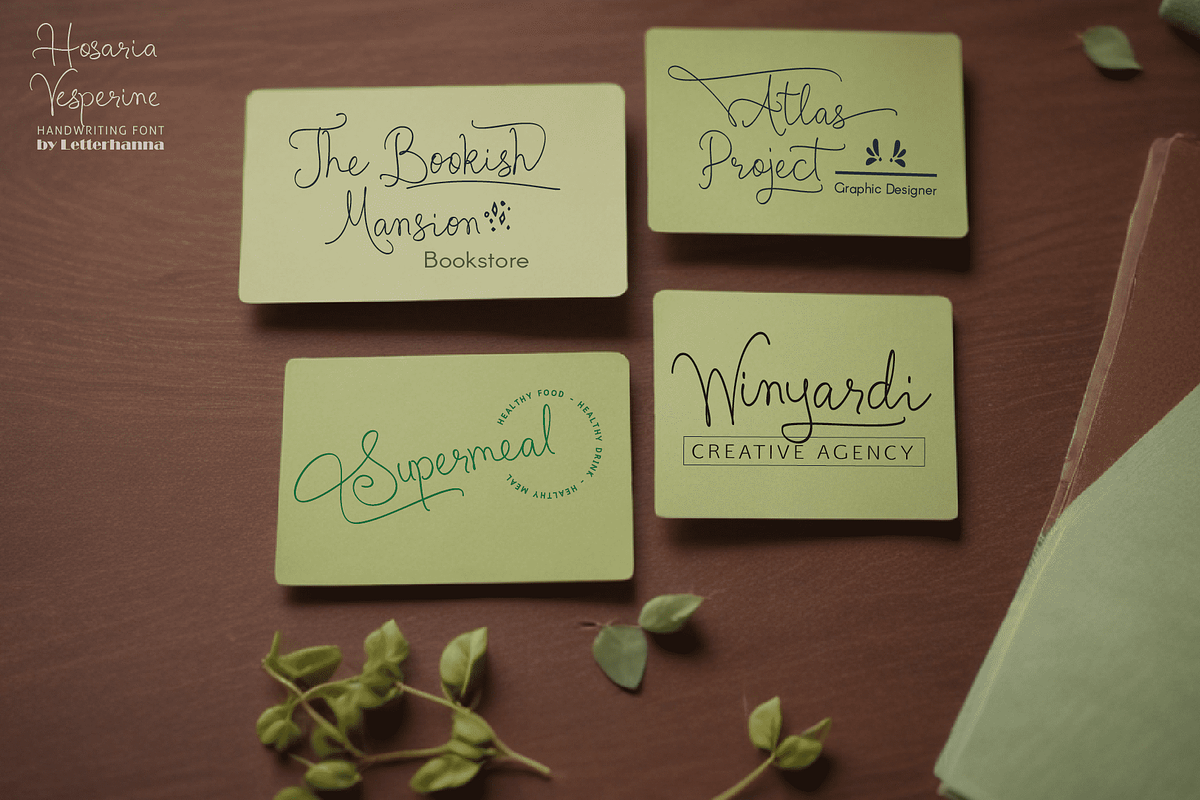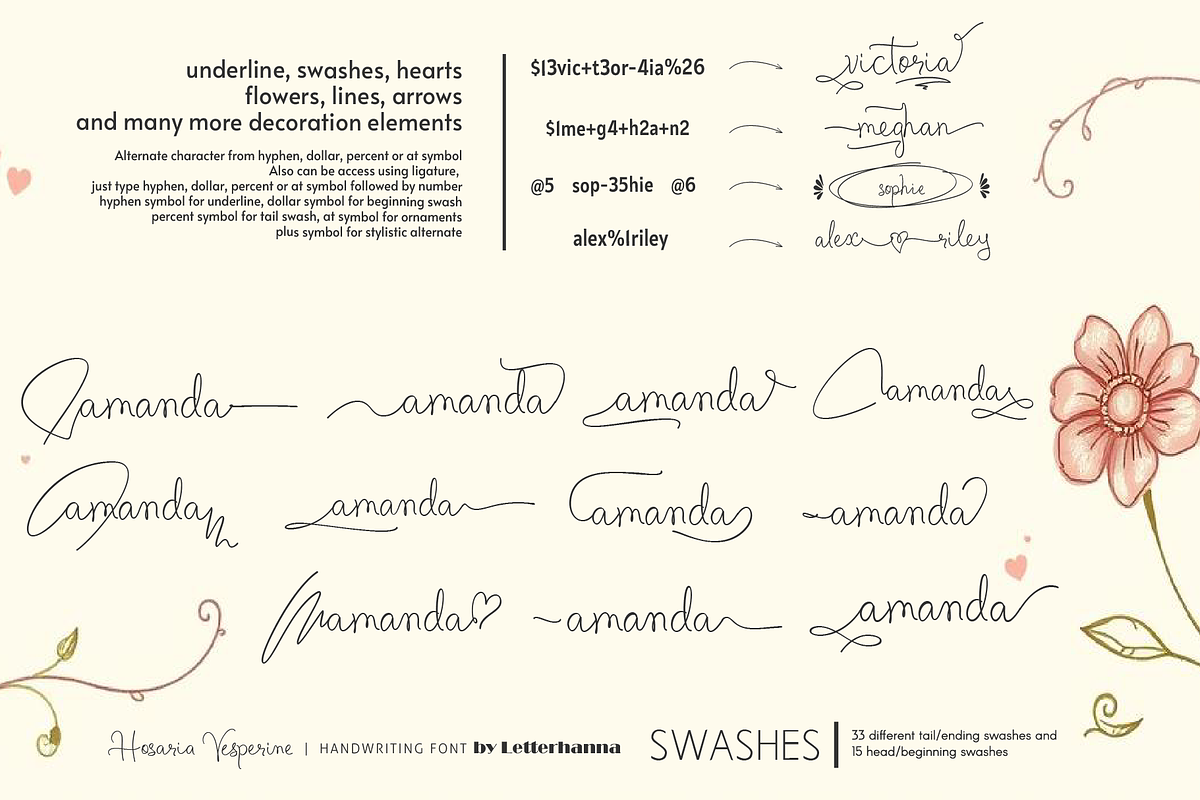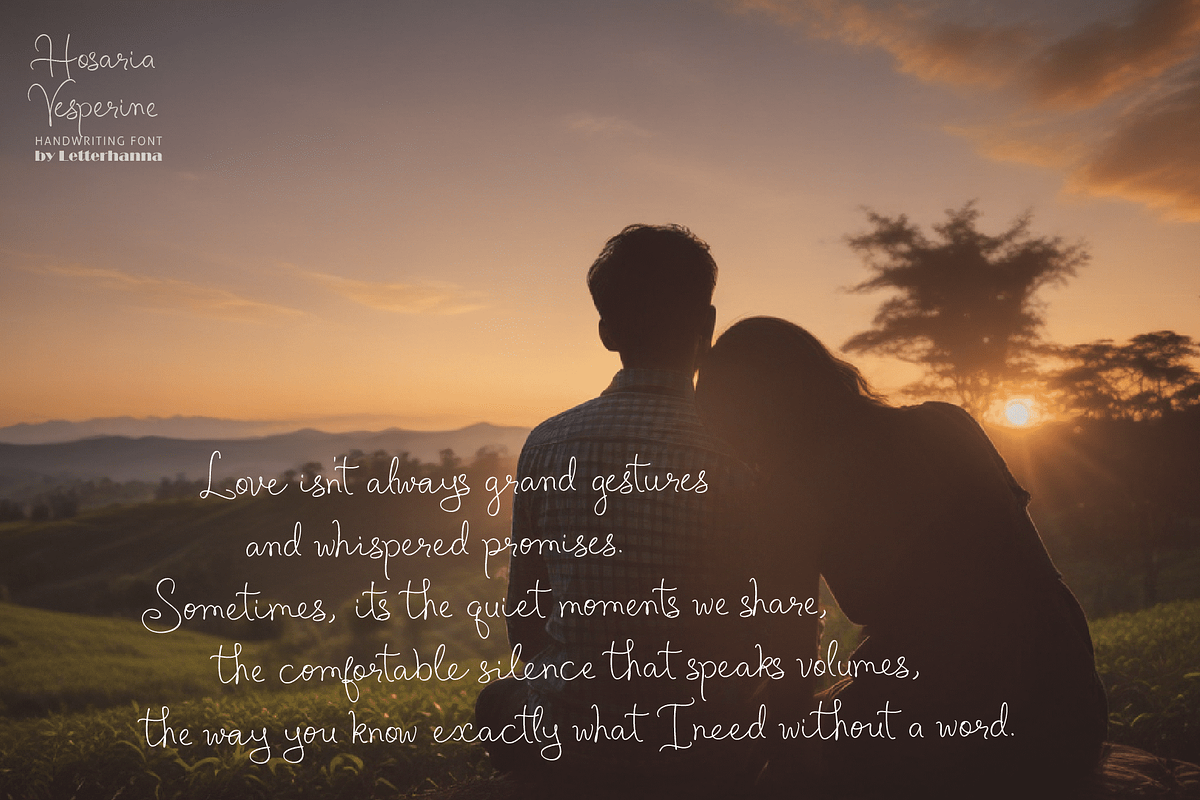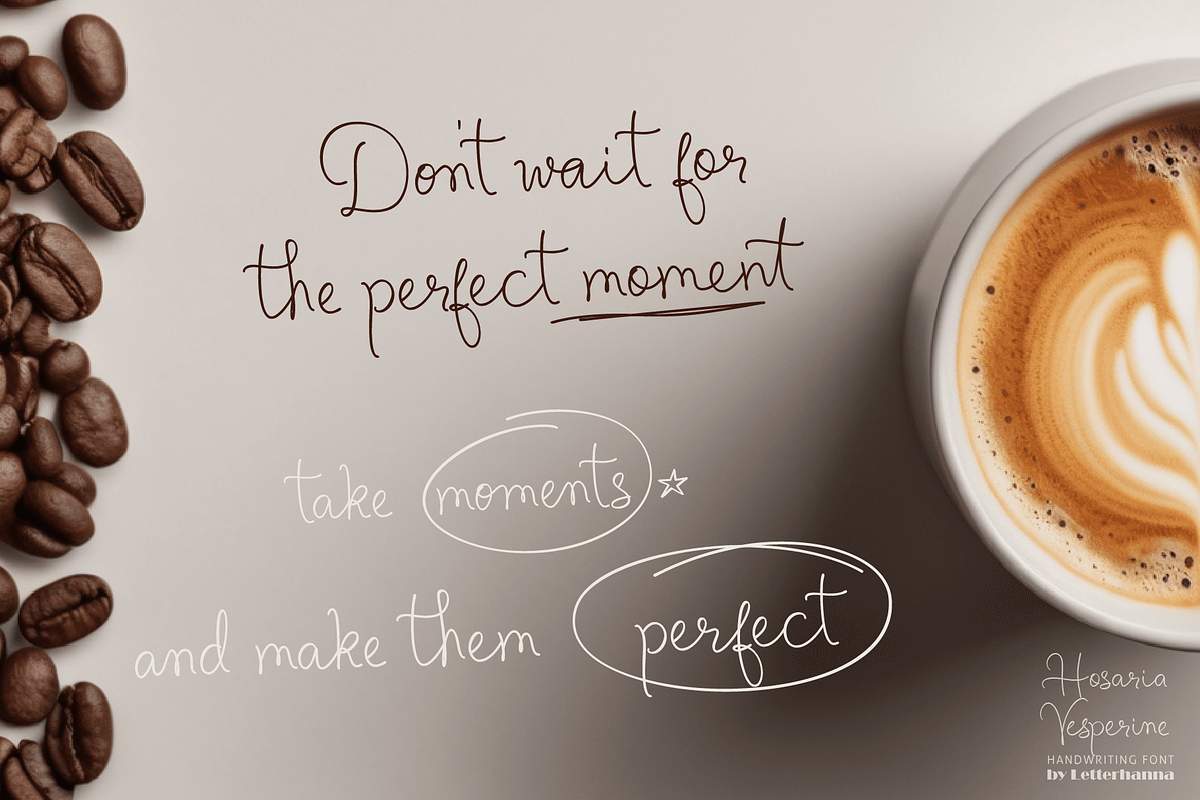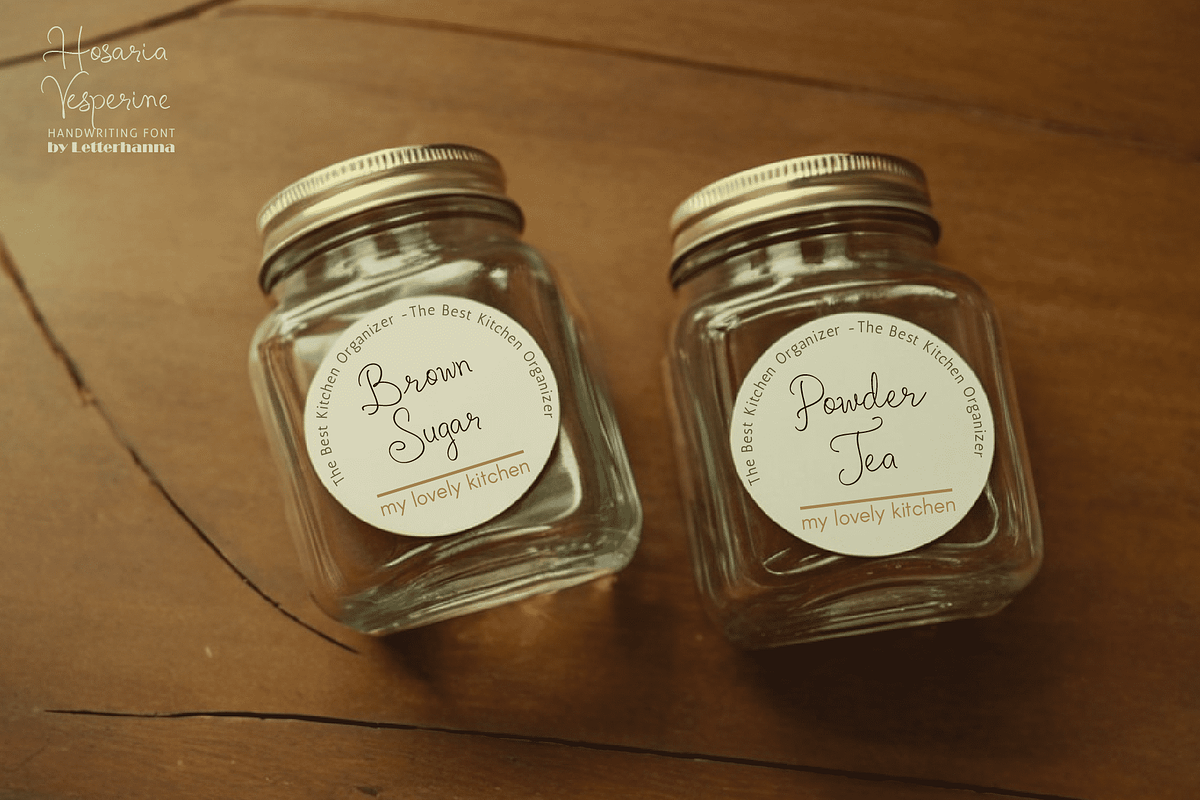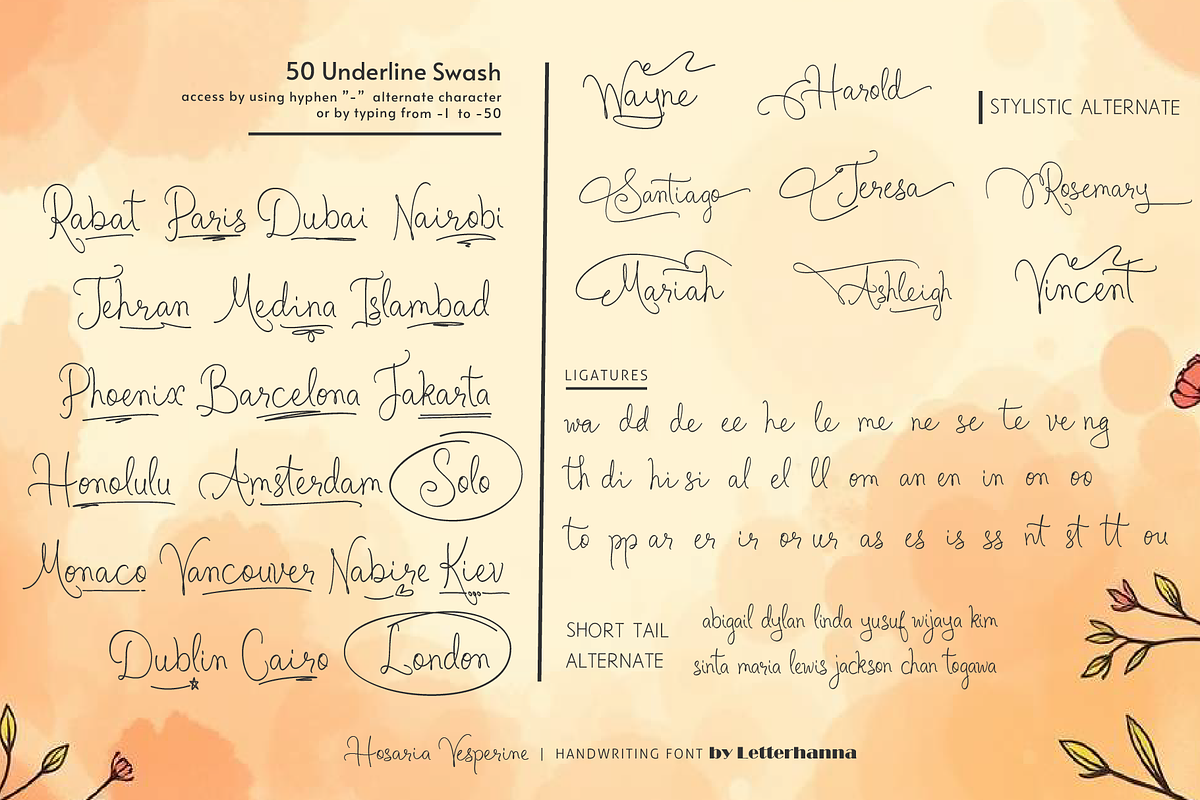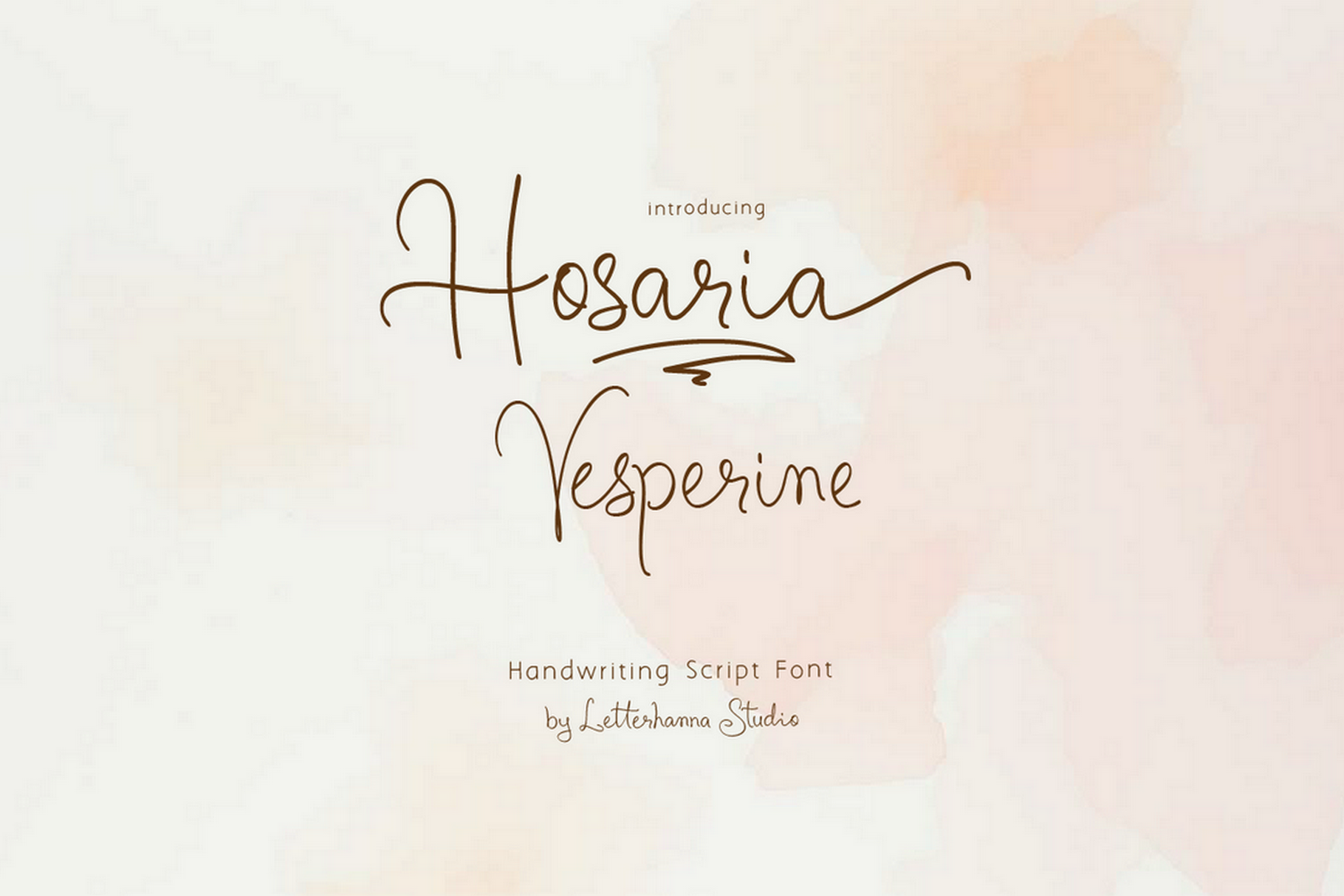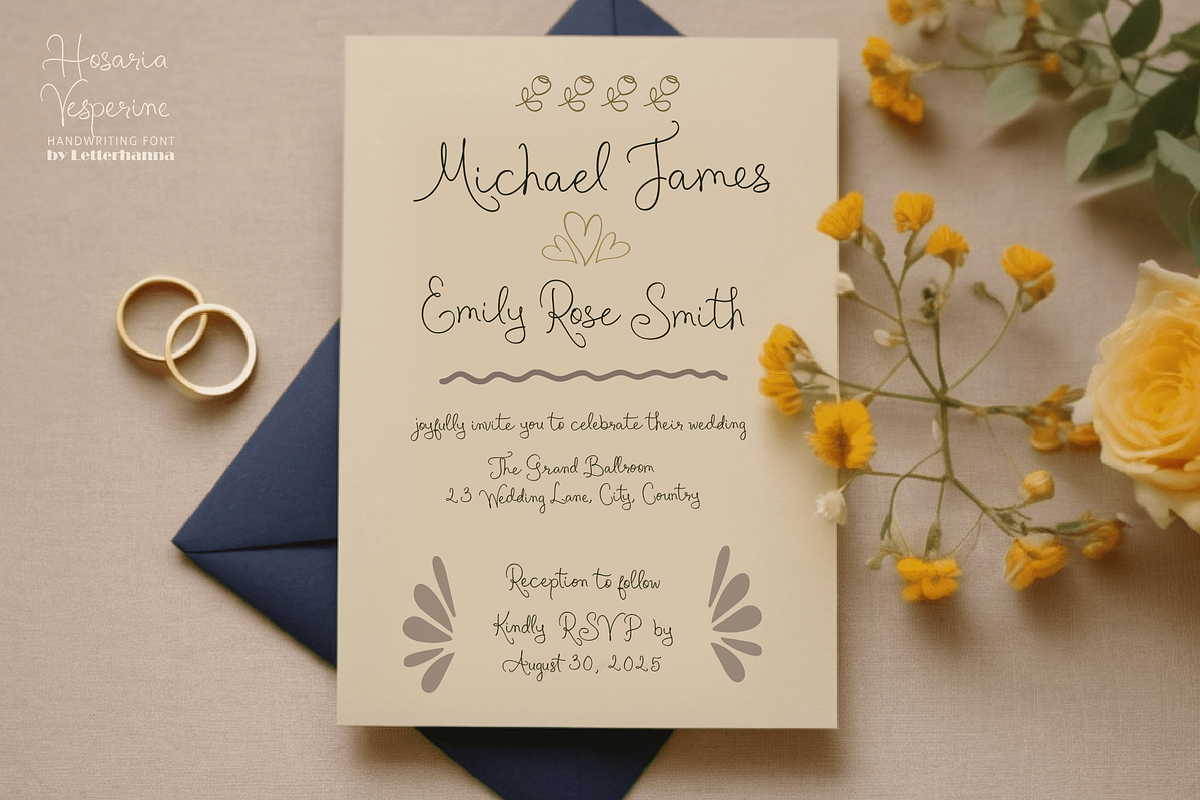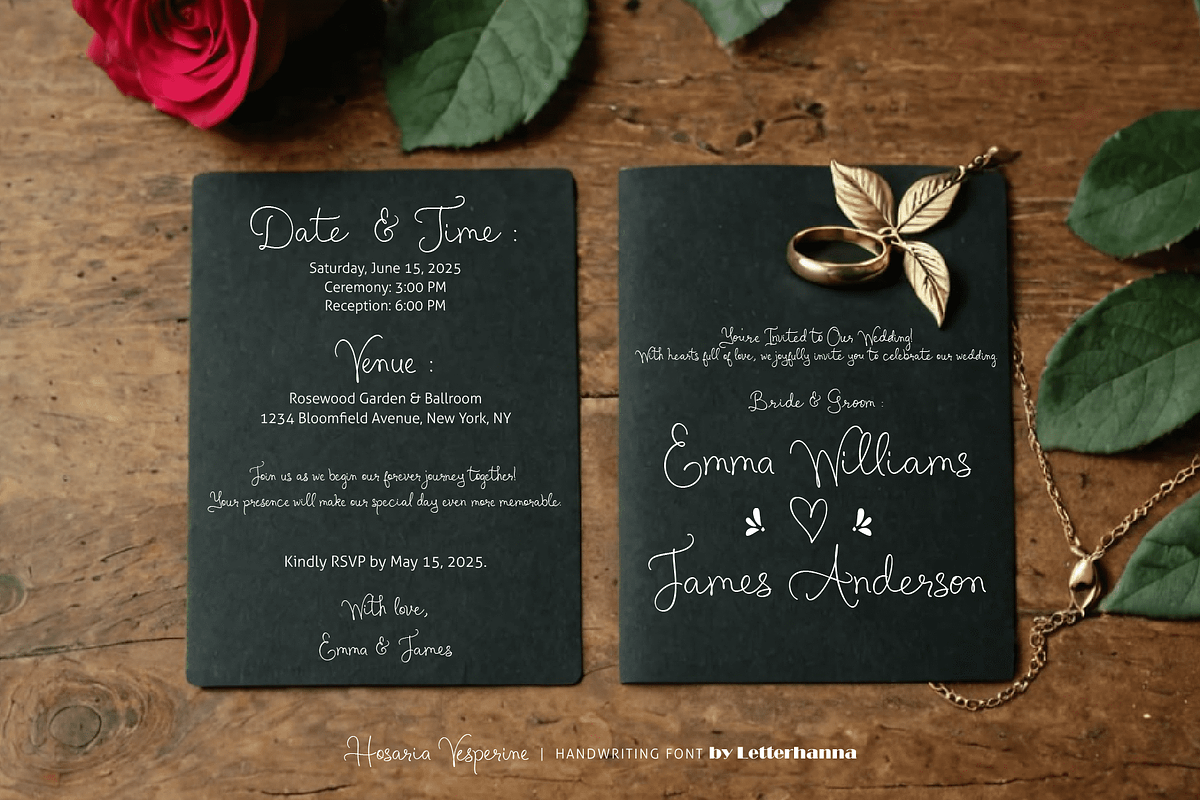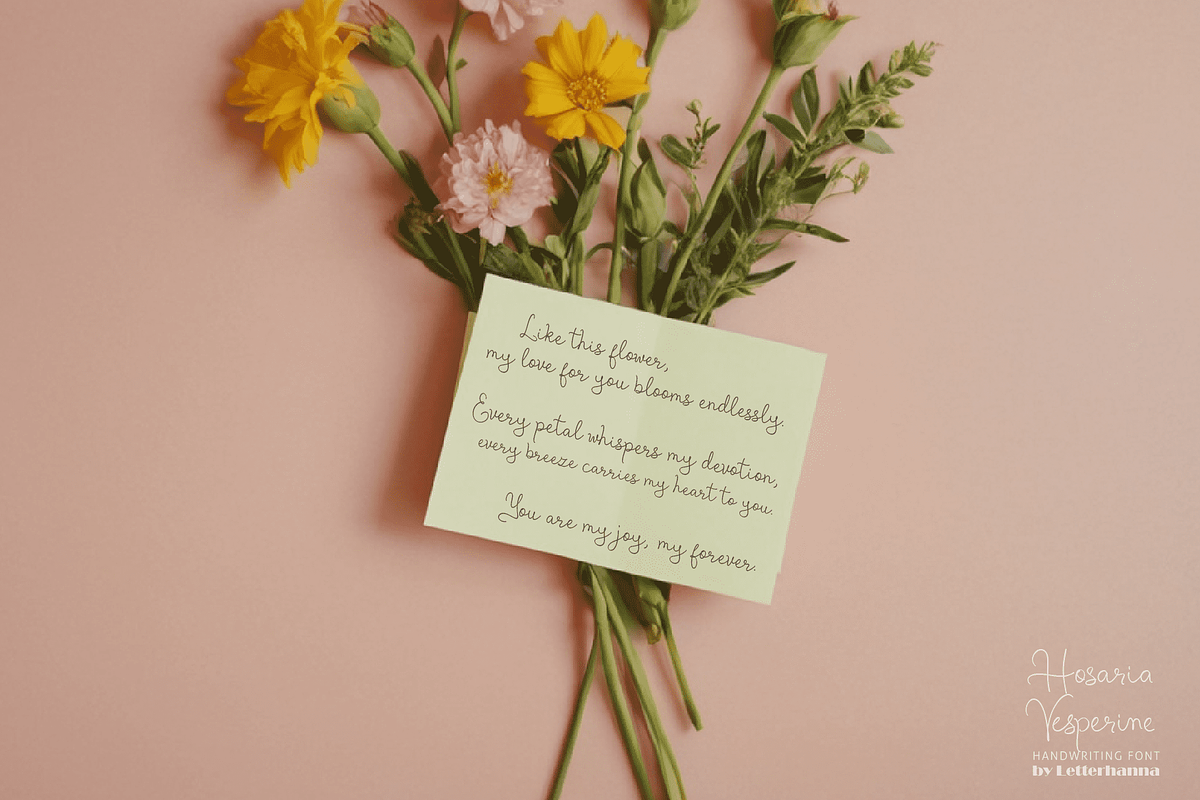
Hosaria Vesperine Handwriting Font
Meet Hosaria Vesperine — a graceful handwriting script font that dances with elegance and flair. Designed with love for detail, this font comes packed with stunning stylistic alternates, luxurious swashes, and charming ligatures to bring every letter to life. Whether you're crafting wedding invites, branding projects, or heartfelt quotes, Hosaria Vesperine adds that perfect handwritten magic.
Easy Access to Glyphs and Swashes
Accessing Swashes and Ornaments
Underline Swashes: Use a hyphen symbol "-" followed by a number between 1 and 50. For example, type "-3", "-22", or "-17" to get various underline swashes.
Head/Beginning Swashes: Use a dollar sign "$" followed by a number between 1 and 15. For example, type "$2" or "$8" to get different head/beginning swashes.
Tail/Ending Swashes: Use a percent sign "%" followed by a number between 1 and 33. For example, type "%3" or "%15" to get various tail/ending swashes.
Ornaments: Use an "at" symbol "@" followed by a number between 1 and 21. For example, type "@4" or "@13" to get different ornament.
PUA Encoding for Ease of Use, which means you can access all the glyphs and swashes with ease!
Uppercase and lowercase letters Numbers and punctuation marks Multilingual support Ligatures Beginning and ending swashes Underline swashes Ornaments Easy access to swashes using ligatures